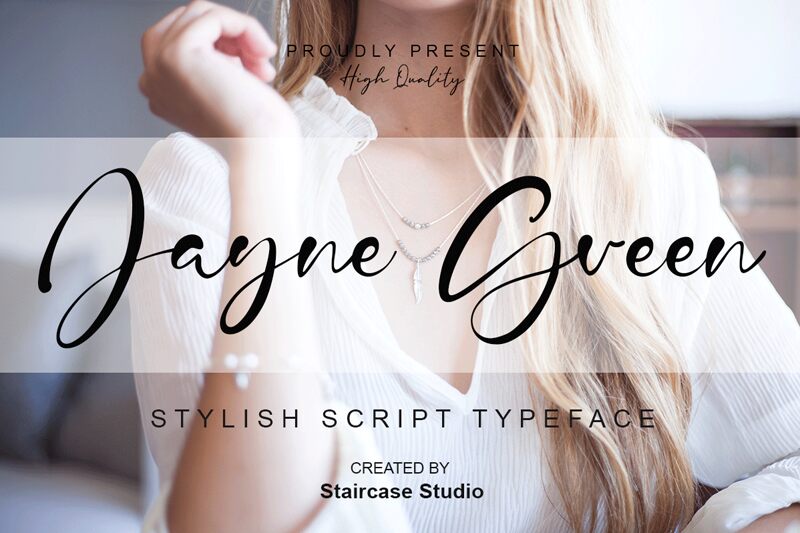
Jayne Green
Jayne Green by Staircase Studio is a semi-light, stylish script font that exudes elegance and sophistication. Its flowing curves and delicate lines make it perfect for use in projects such as wedding invitations, branding for luxury products, or any design that requires a touch of refined beauty. This versatile font can also be used for editorial designs such as magazine covers or book titles. With its unique personality and attention to detail, Jayne Green is sure to add a touch of class to any project.